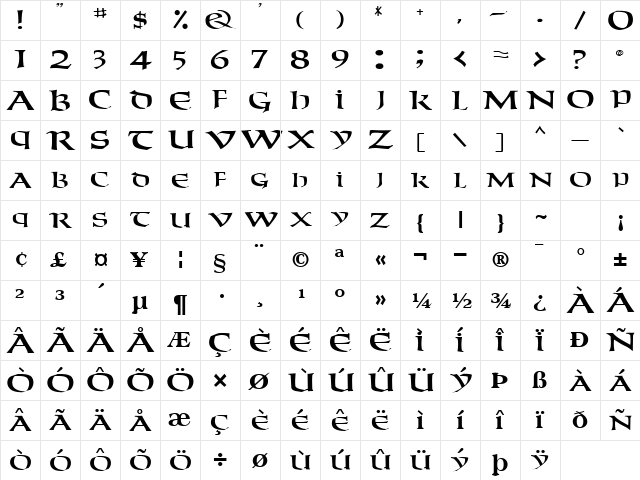
Weekender Regular
Design Context for Weekender Typeface
Weekender is a composed and adaptable typeface that performs quietly and consistently across a wide range of design contexts.